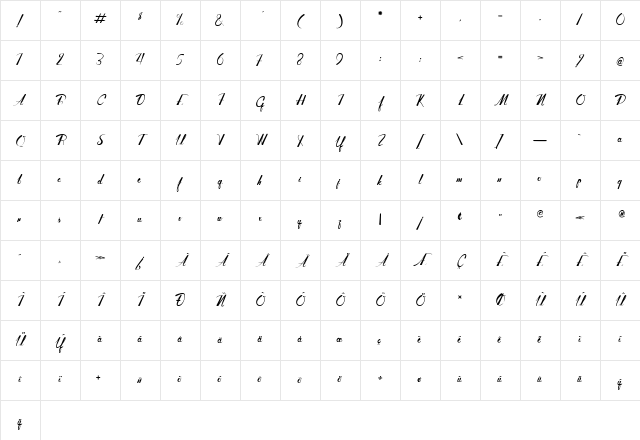
Complete Adventure of the old Giant Regular glyph index. Displaying only characters natively supported by Adventure of the old Giant Regular font.
Adventure of the old Giant is a composed and adaptable typeface that performs quietly and consistently across a wide range of design contexts.